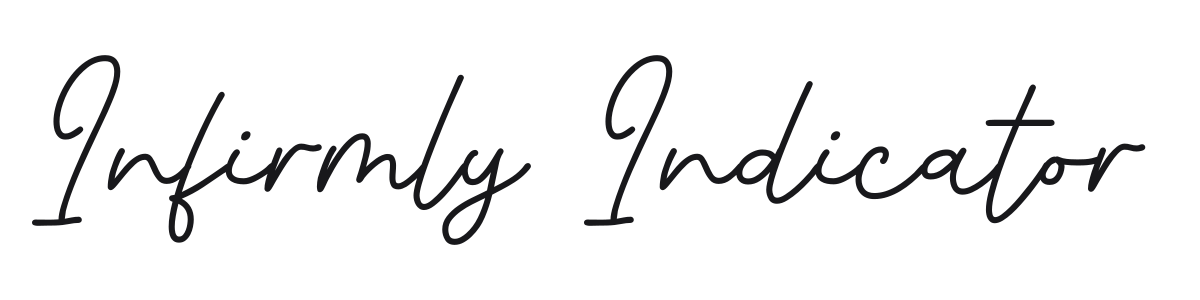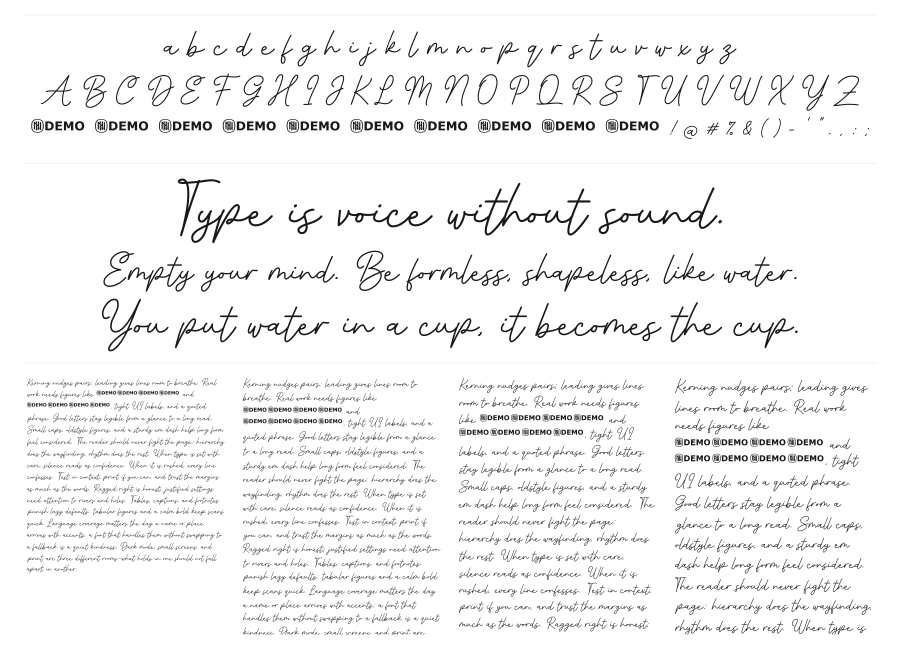
Infirmly Indicator
Infirmly Indicator is a flowing casual script with thin, continuous strokes and long sweeping connections that give it a breezy, handwritten energy. The loose letterforms and gentle baseline movement make it feel effortless without sacrificing legibility at headline sizes. It sits naturally in branding, wedding stationery, and lifestyle packaging.